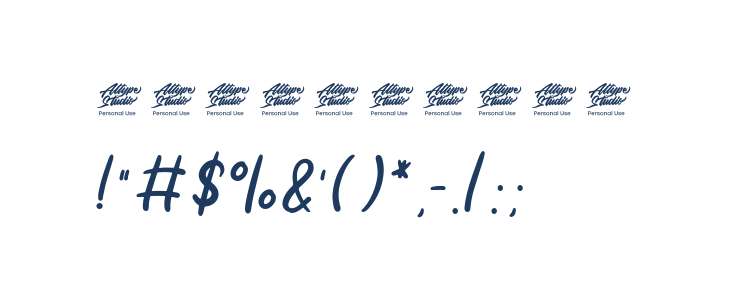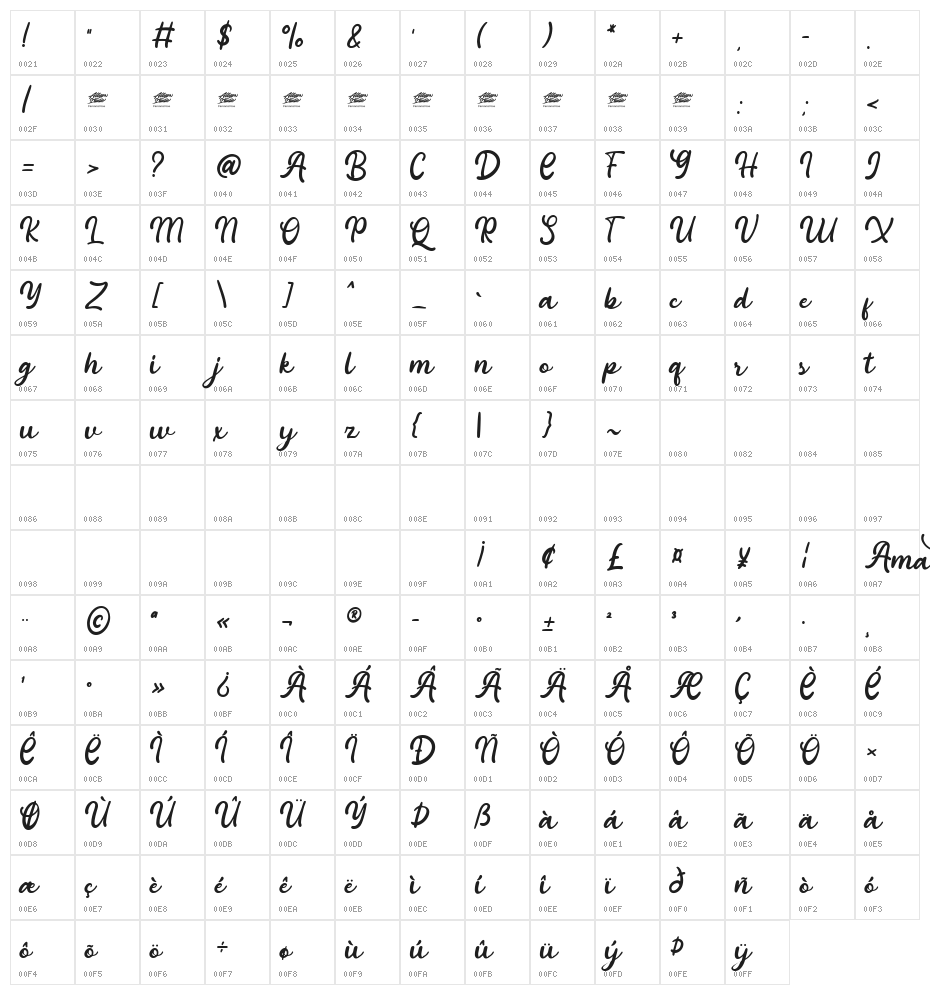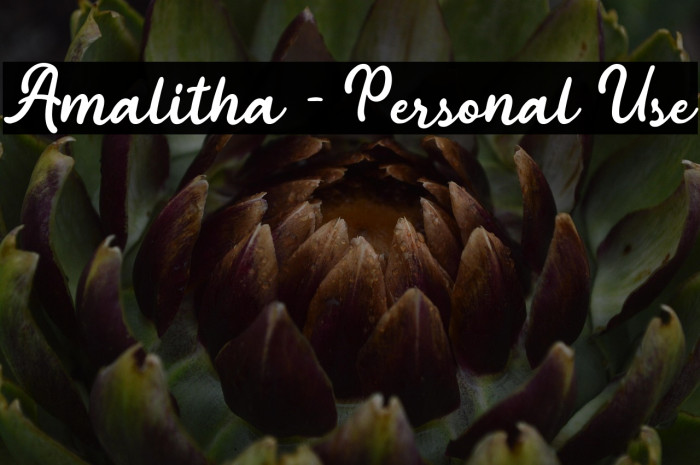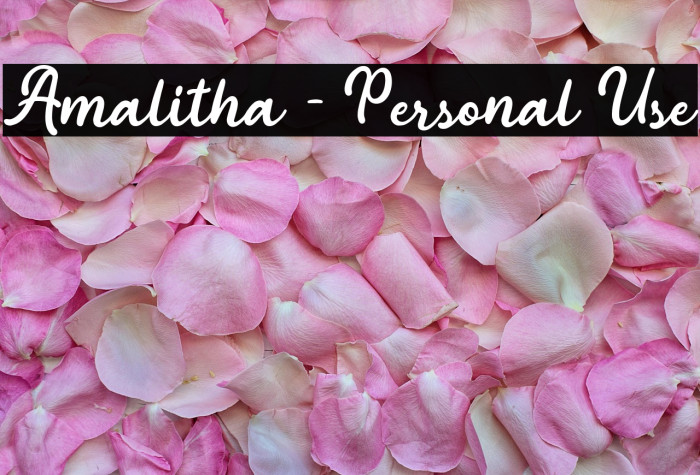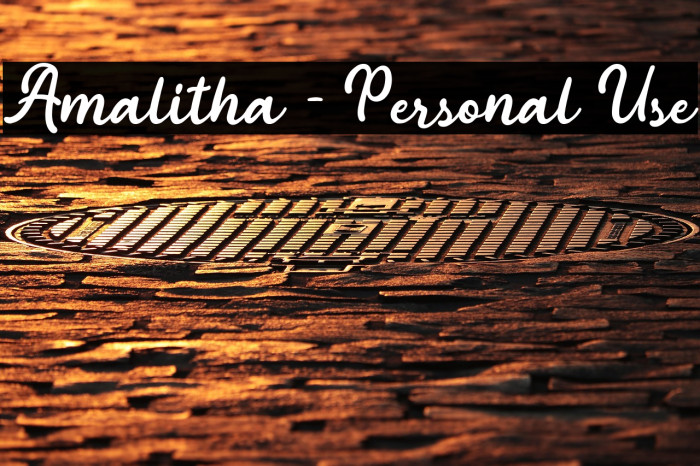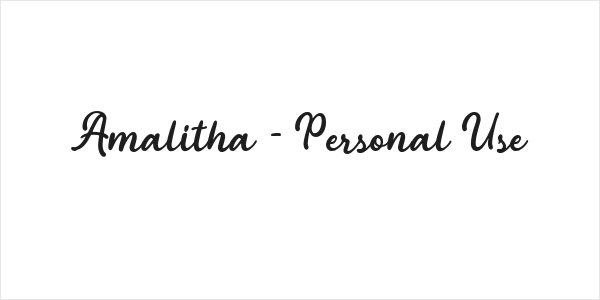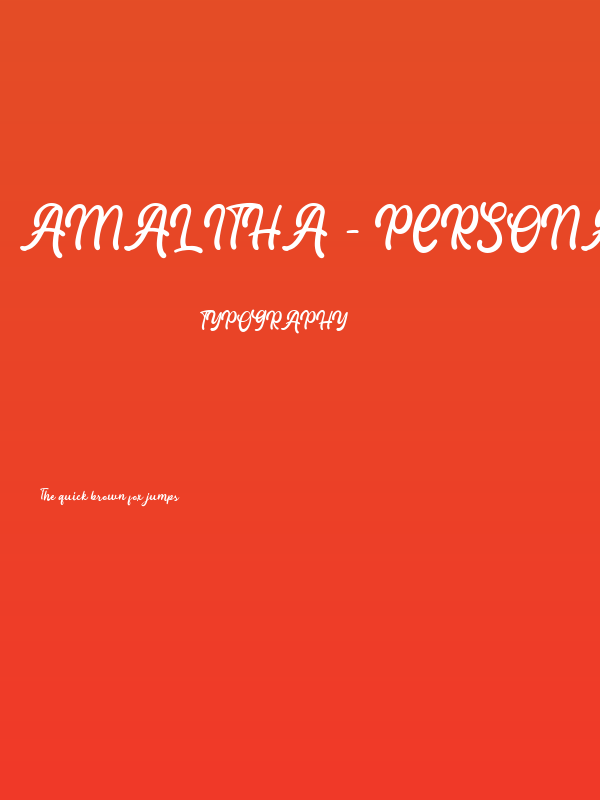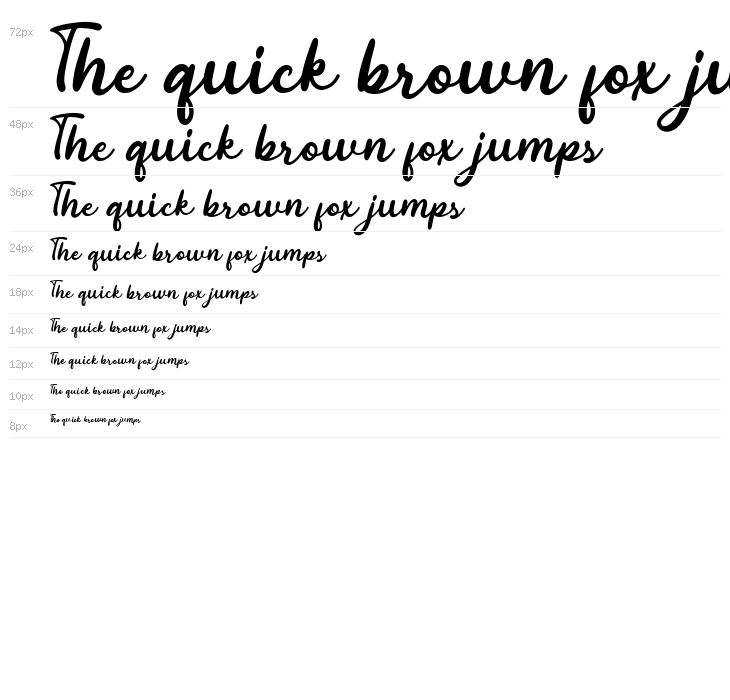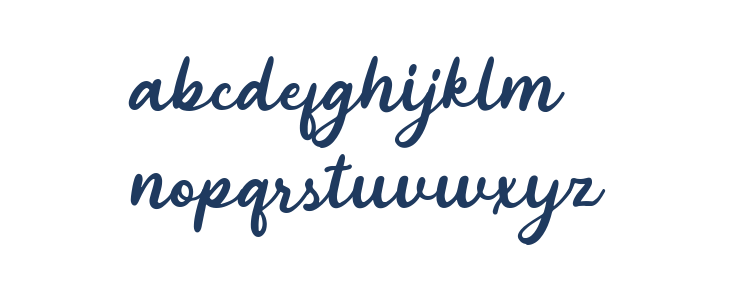
Amalitha - Personal Use Font
Amalitha - Personal Use Description
This font features a flowing, cursive style with a modern twist. The letters are interconnected, creating a seamless and elegant appearance. The uppercase characters are bold and slightly slanted, giving them a dynamic and lively feel. The lowercase letters maintain a consistent flow, with smooth curves and loops that enhance the font's overall aesthetic. The numerals and special characters are designed to match the script style, ensuring a cohesive look across all text. This font exudes a sense of sophistication and creativity, making it suitable for a variety of design projects.